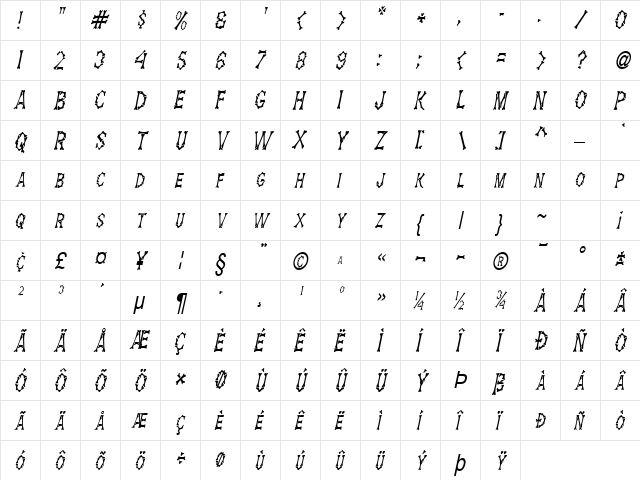
Eddy's Bones-Condensed Italic Font Preview
Design Context for Eddy's Bones-Condensed Typeface
Eddy's Bones-Condensed takes a measured approach to typography — its balanced proportions and neutral character make it a reliable workhorse for both digital and print work. Its italic angle brings a sense of urgency and motion to the letterforms. Its narrow stance lets it pack a punch even in space-constrained designs.
Pro Tip: Use Eddy's Bones-Condensed for emphasis, pull quotes, and subheadings where its slanted energy can add rhythm to the layout.